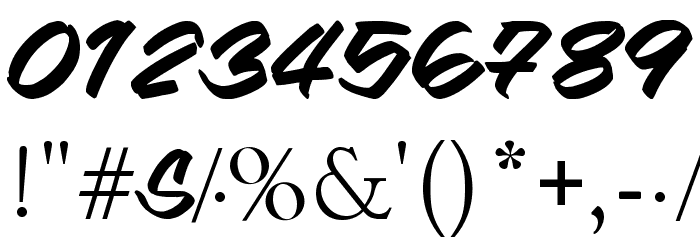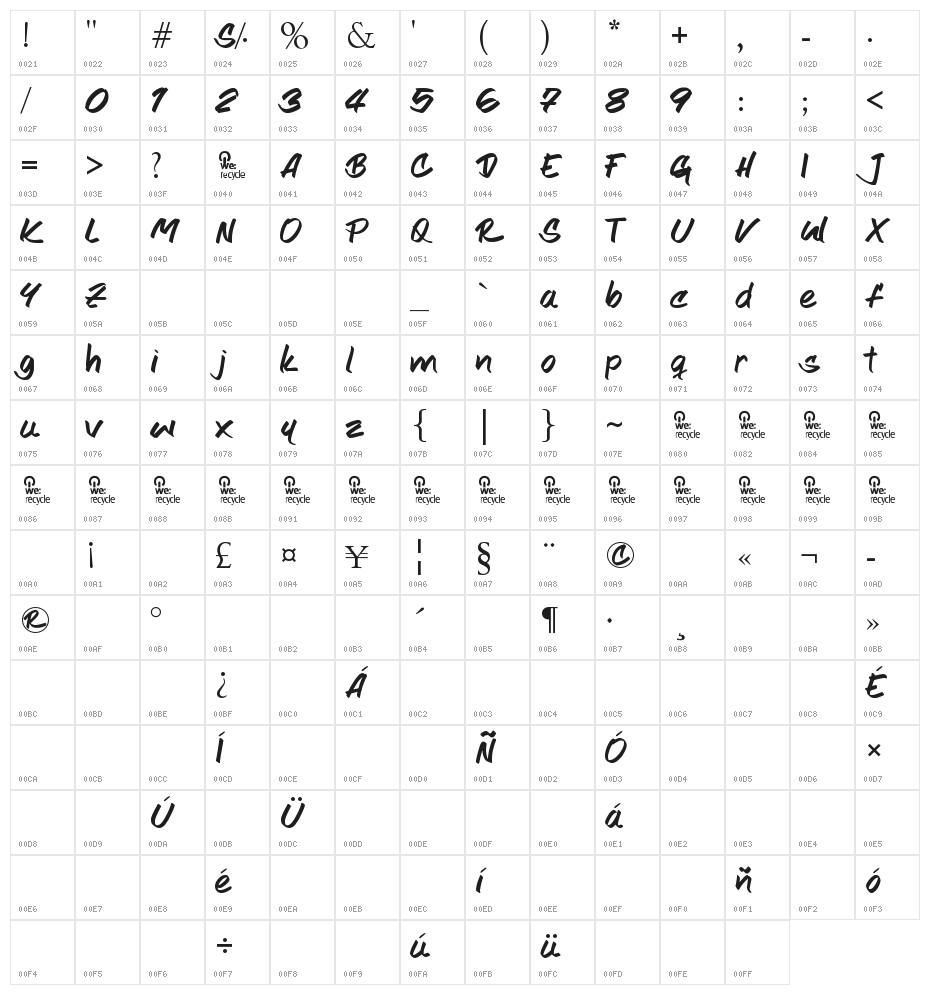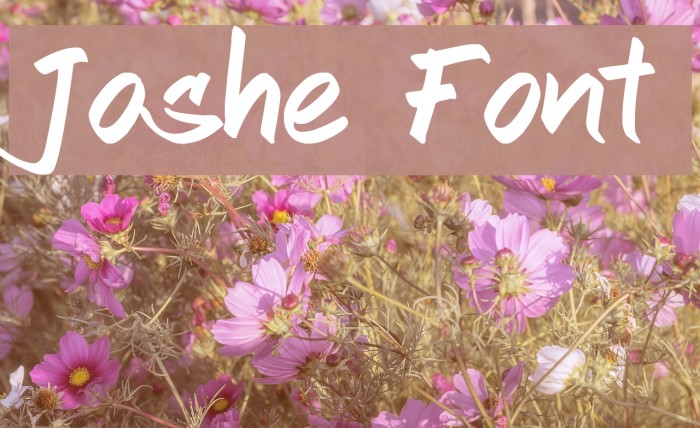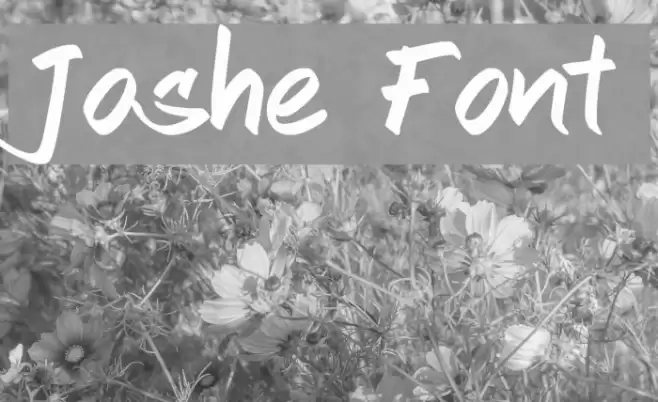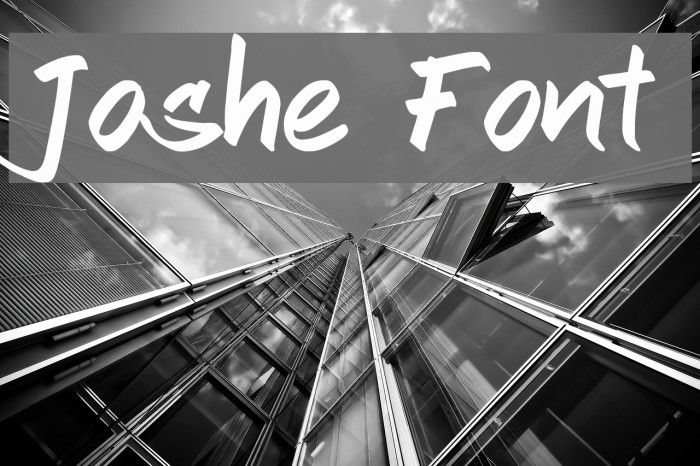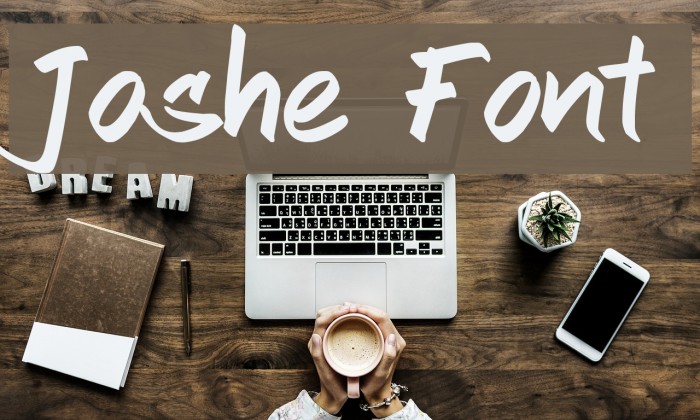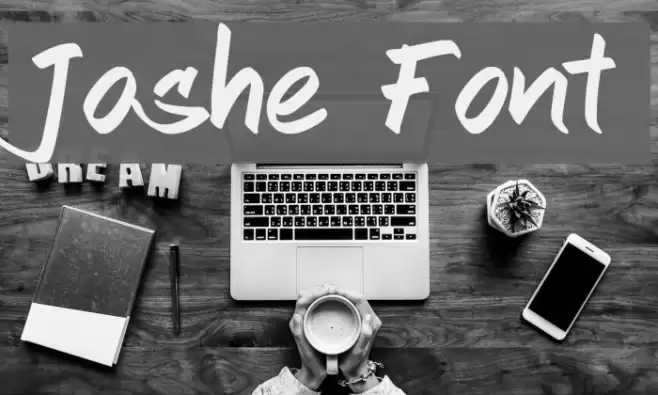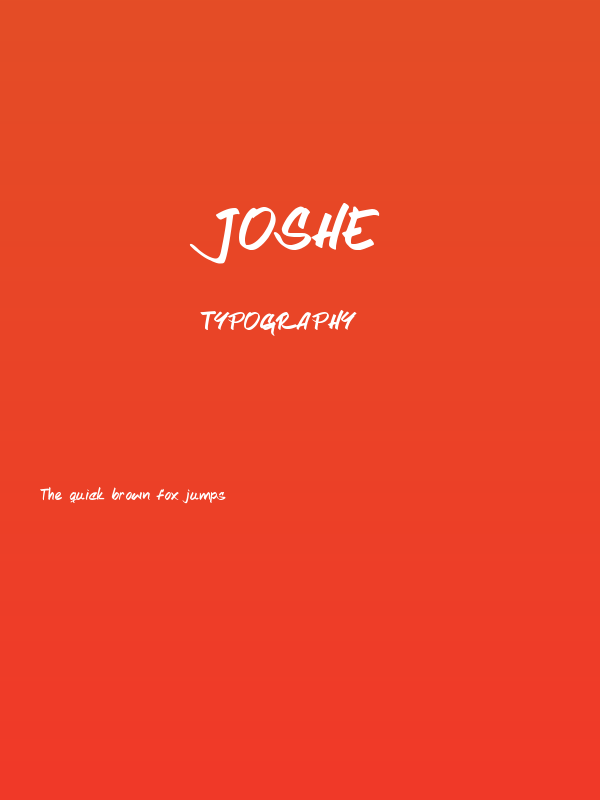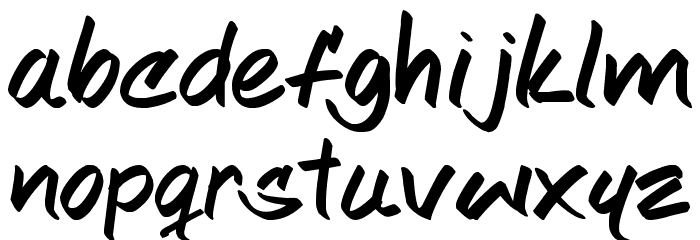
Joshe Font
Joshe Description
This font exhibits a dynamic and energetic style, characterized by its bold and fluid strokes. The letters are crafted with a brush-like appearance, giving them a handwritten and casual feel. The uppercase letters are slightly more angular, while the lowercase letters maintain a consistent flow, enhancing readability. The numbers and special characters are designed to match the overall aesthetic, ensuring a cohesive look across all text elements. This font's unique style makes it stand out, offering a modern twist on traditional script fonts.
| Proposed Projects | Ideal for branding projects, social media graphics, posters, and invitations where a personal and lively touch is desired. |